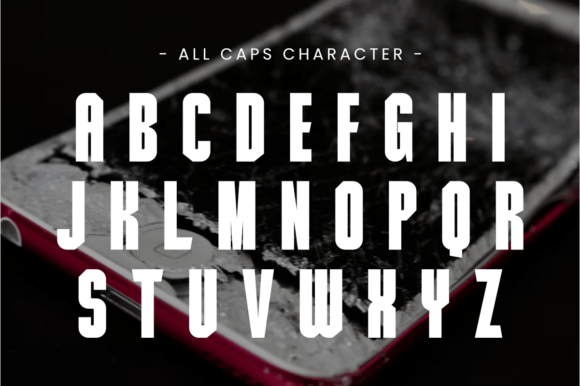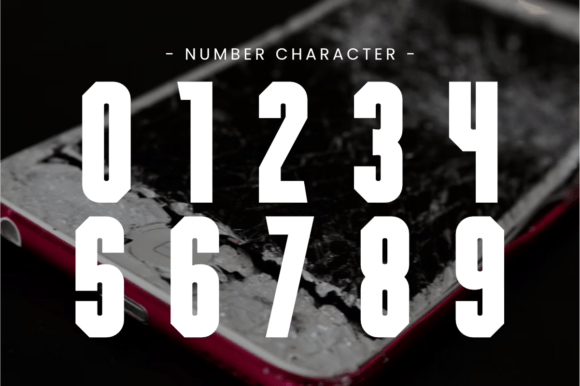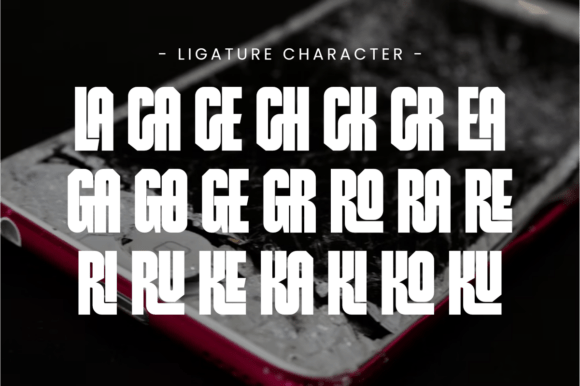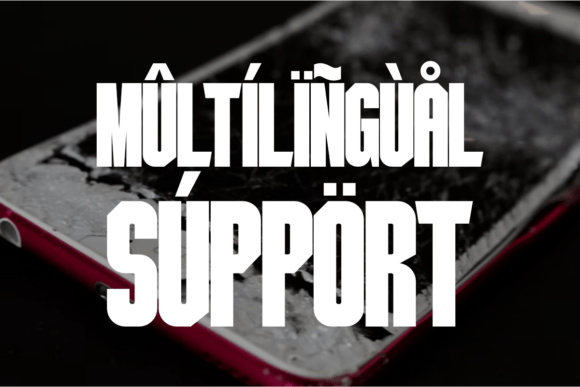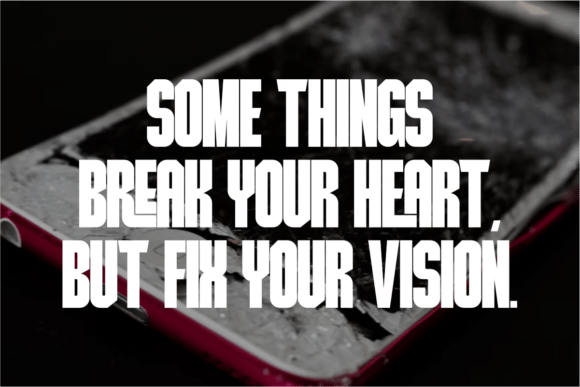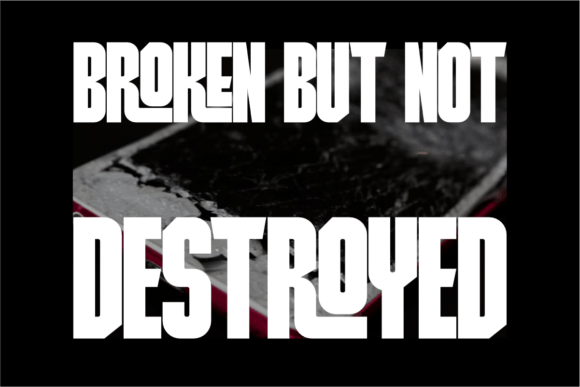
The Power of Broken Font: Unleashing High-Impact Typography
I’ll never forget the time I was working on a project for a sports brand, struggling to find the perfect font that would convey the energy and boldness of their brand. The client wanted a design that would make a statement, but I was stuck with a sea of bland, generic fonts that just didn’t cut it. That’s when I stumbled upon Broken font, an ultra-condensed sans-serif font that would change the game for me. In this article, I’ll share my experience with Broken font, its features, and how to make the most of it in your designs.
Broken font has become a go-to in my design arsenal, and for good reason. Here are some things I love about it:
• ✨ Ultra-condensed style: Perfect for projects that need maximum impact, such as posters, sports designs, logos, and bold branding.
• ✅ Modern structure: The tall, bold letterforms give it a fresh and energetic feel.
• ✅ PUA-encoded: Effortless access to all glyphs, swashes, and alternate characters to help you customize your creations with ease.
Of course, no font is perfect, and Broken font has a few quirks:
• 🤔 Limited use in body text: Due to its condensed style, Broken font might not be the best choice for long blocks of text.
• ⚠️ Requires some experimentation: To get the most out of Broken font, you’ll need to experiment with different OpenType features and glyphs.
The Designer Inspiration Behind Broken Font
Broken font was designed with the goal of creating a bold, high-impact font that would make a statement. Its creator, inspired by the urban landscape and modern sports culture, aimed to craft a font that would convey energy, strength, and confidence. The result is a font that’s perfect for designers who want to add a touch of boldness to their projects.
What is Broken font best used for? Broken font is ideal for projects that require a bold, high-impact font, such as posters, sports designs, logos, and bold branding.
Is Broken font suitable for body text? Due to its condensed style, Broken font might not be the best choice for long blocks of text. It’s better suited for headlines and titles.